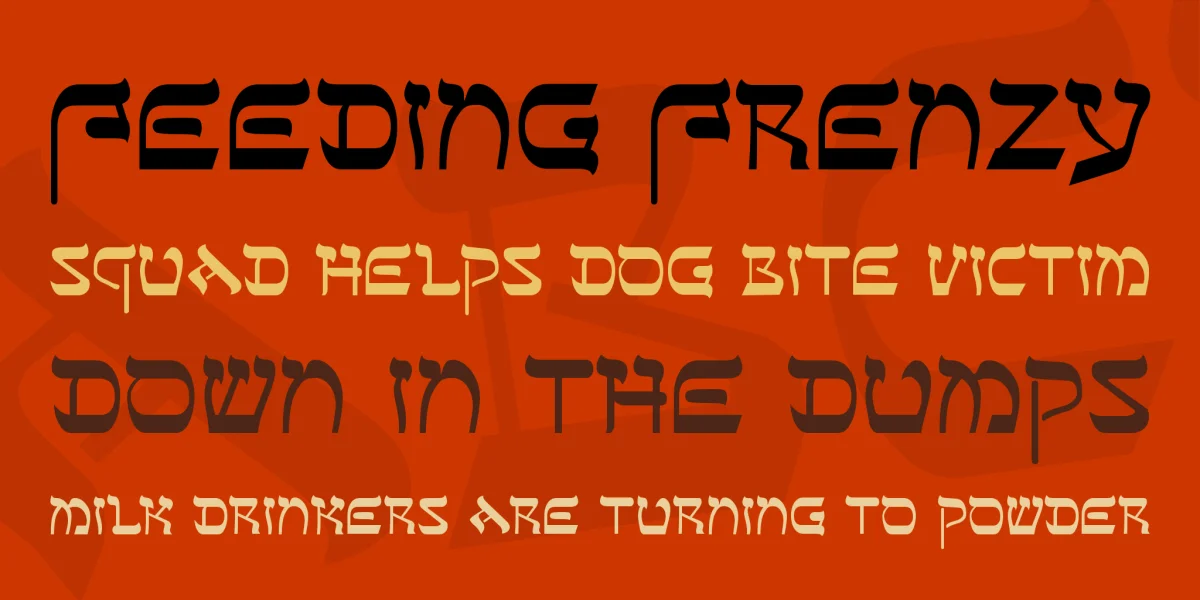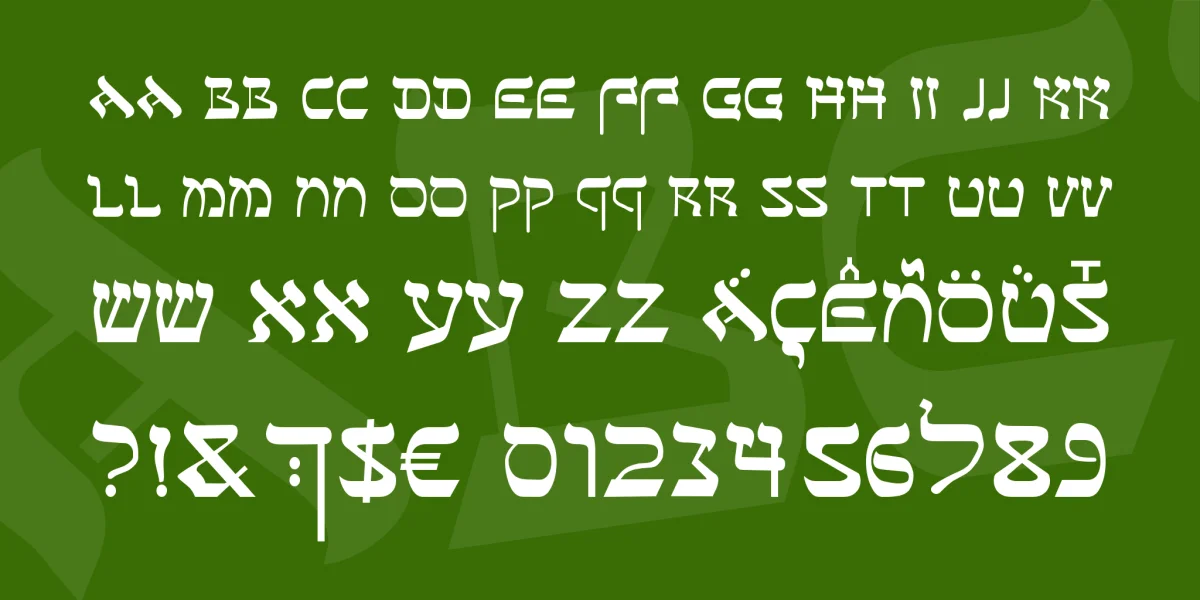
Sefer - Hebrew for 'letter' or 'book scroll', is a Roman font made from elements of the Hebrew alphabet. Not an irregular or calligraphic imitation of Hebrew writing like similar faces (such as 'Shalom' or 'Moses'), but reminding of the ordinary print letters.There is no distinction between upper- and lowercase, like in the Hebrew alphabet itself. The beginnings of 'Sefer AH' go back to the year 2000 when it was discussed extensively in the usenet group 'alt.binaries.fonts'.The 'H' follows a suggestion from Melissa Windsor. The German double s goes back to Fred Nader (aka 'apostrophe') who proposed it then. I refused to include it at that time, since there is no uppercase German double s. But now that the Unicode has meanwhile given the Uppercase Germandbls an Unicode number, I changed my mind and now (version 1.40, April 2013) let you make the choice as to whether to use it or not.